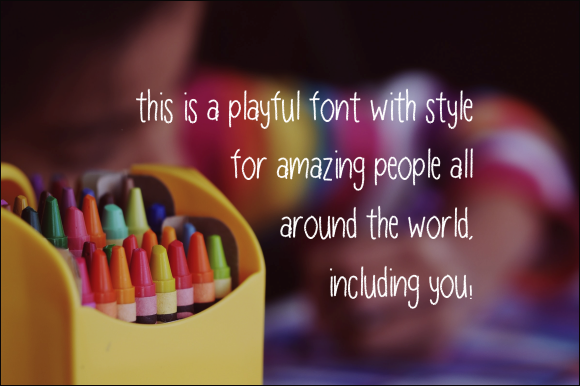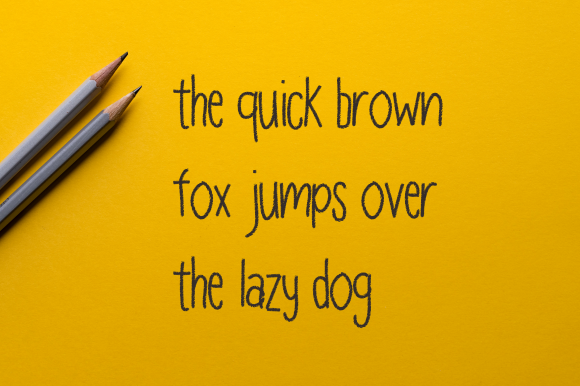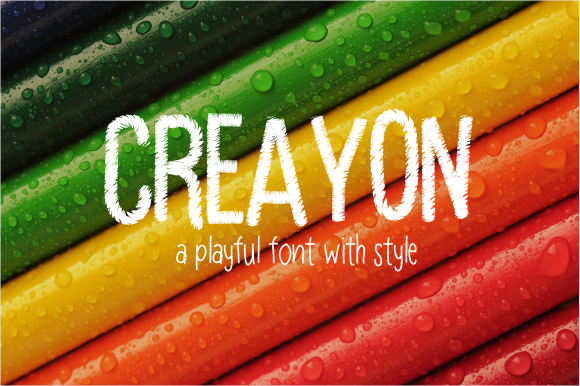
Introducing Creayon Font: The Ultimate Display Font for Creative Projects
Are you tired of using the same old fonts for your creative projects? Look no further than Creayon Font, a unique and enchanting display font that embodies fun, quirkiness, and authenticity. With its childlike playfulness, Creayon is perfect for turning any creative idea into a true standout.
The Characteristics of Creayon Font
Creayon Font is a display font that is sure to capture attention with its whimsical and playful design. Its distinctive features include:
• Unique letterforms: Each letter in Creayon has its own special charm, making it perfect for creative projects that require a personal touch.
• Childlike playfulness: Creayon has a fun and carefree vibe that’s perfect for kids and school projects, as well as any creative endeavor that requires a dash of whimsy.
• Quirky and authentic: Creayon is unapologetically itself, making it a great choice for designers and crafters who want to add a touch of personality to their work.
Why Choose Creayon Font?
So why choose Creayon Font for your next creative project? Here are just a few reasons:
• Stand out from the crowd: With Creayon, you’ll be able to create projects that are truly one-of-a-kind and attention-grabbing.
• Perfect for kids and school projects: Creayon’s playful design makes it an excellent choice for projects aimed at kids, such as school assignments, posters, and flyers.
• Versatile: Creayon can be used for a wide range of creative projects, from digital designs to print materials.
How to Use Creayon Font
Using Creayon Font is easy! Here are some tips to get you started:
• Pair it with other fonts: Creayon pairs well with other fonts, so feel free to experiment with different combinations to create a unique look.
• Experiment with colors: Creayon looks great in a variety of colors, so don’t be afraid to try out different hues and shades.
• Use it for headings and titles: Creayon’s playful design makes it perfect for headings and titles, where it can add a touch of whimsy and personality.
Creayon Font in Action
Creayon Font is perfect for a wide range of creative projects, including:
• Kids’ party invitations: Create custom invitations that set the tone for a fun and playful party.
• School posters: Use Creayon to create eye-catching posters that will grab the attention of kids and teachers alike.
• Digital designs: Add a touch of whimsy to your digital designs, such as social media graphics and blog posts.
• Craft projects: Use Creayon to add a personal touch to your craft projects, such as scrapbooking and card-making.
Creayon Font is a unique and enchanting display font that’s perfect for creative projects that require a touch of fun, quirkiness, and authenticity. With its childlike playfulness and distinctive features, Creayon is sure to turn any creative idea into a true standout. Whether you’re a designer, crafter, or simply someone who loves to get creative, Creayon Font is a great choice for your next project.